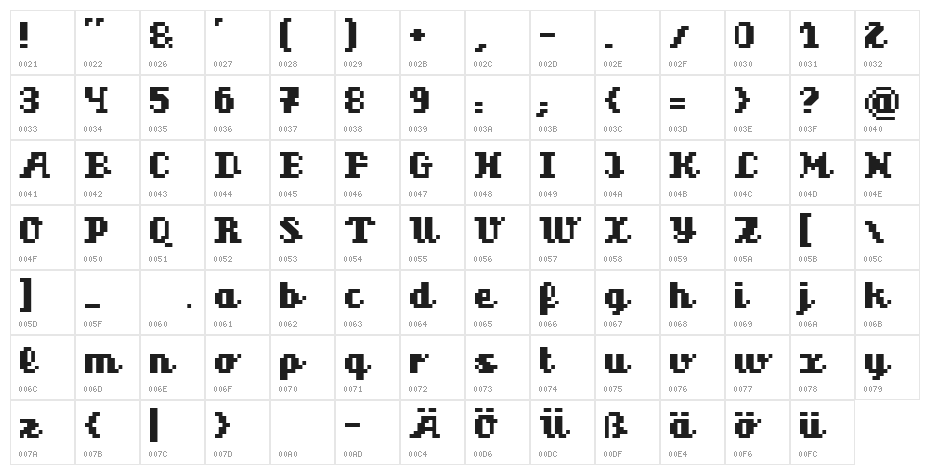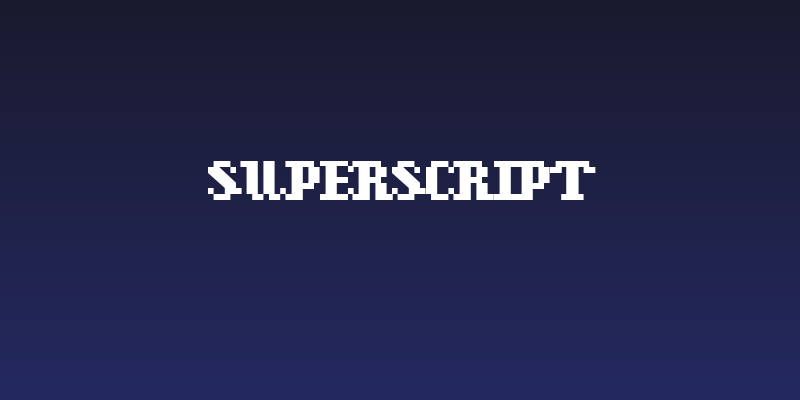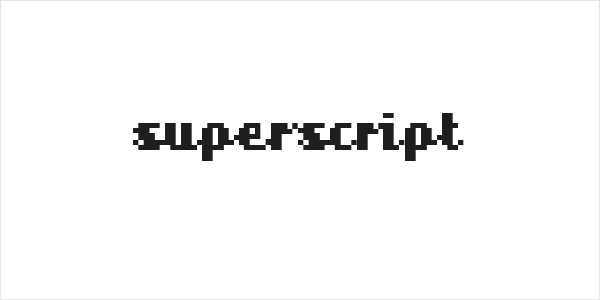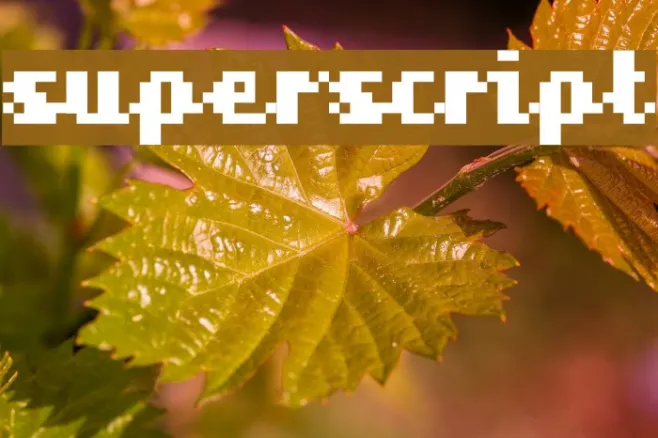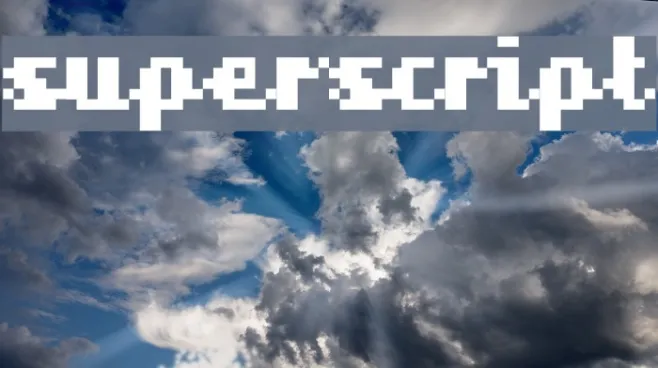
superscript Font
superscript Description
This font features a distinct pixelated style reminiscent of early digital or video game typography. Each character is constructed with a blocky, grid-like appearance, giving it a retro and nostalgic feel. The uppercase and lowercase letters maintain a consistent height, while the numerals and special characters follow the same pixelated design. The font's geometric structure and uniformity make it highly legible, even at smaller sizes. Its unique style captures the essence of vintage computing and gaming aesthetics, making it ideal for projects that aim to evoke a sense of nostalgia or retro charm.
SUPERSCRIPT UPPERCASE
SUPERSCRIPT LOWERCASE
SUPERSCRIPT OTHER CHARS